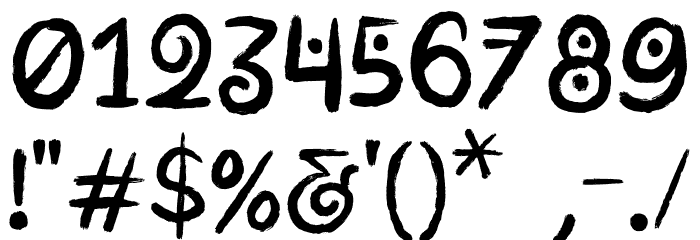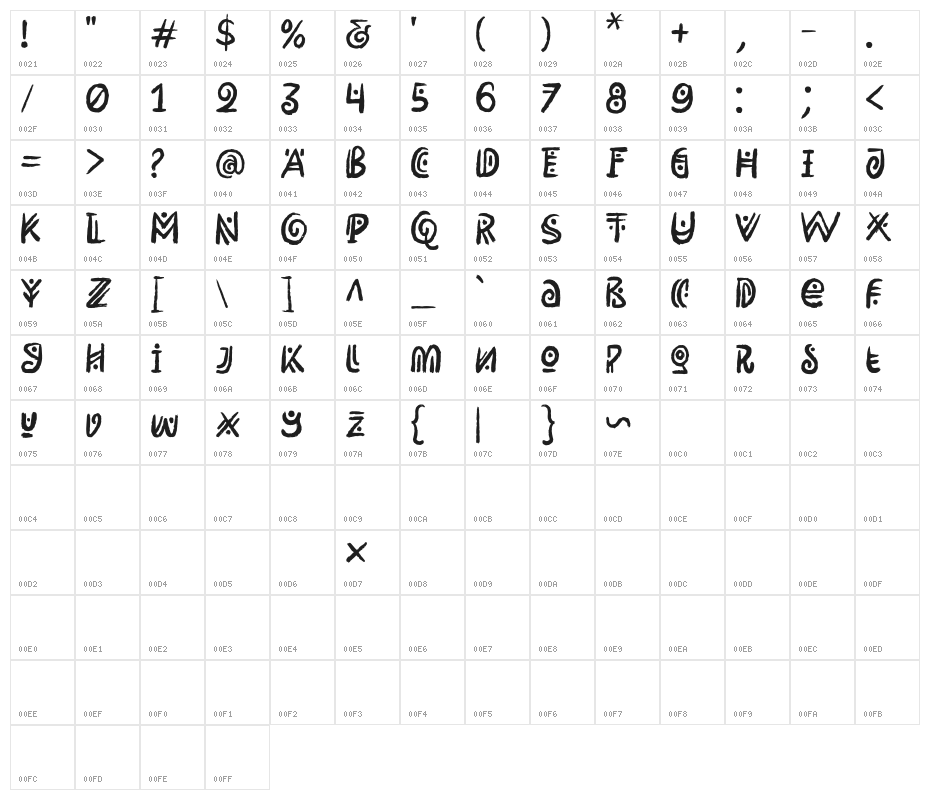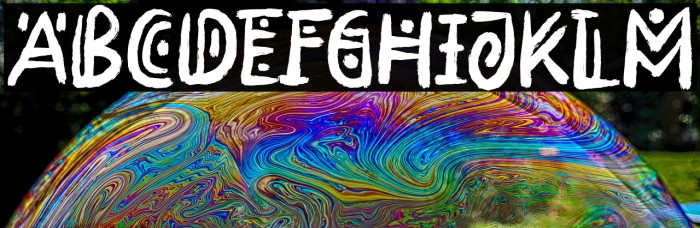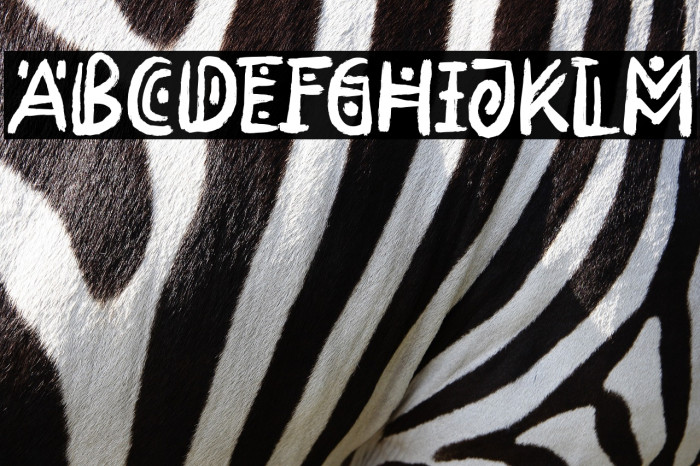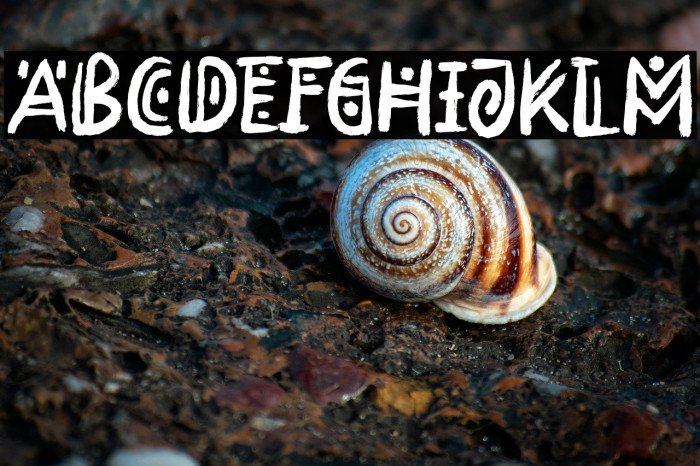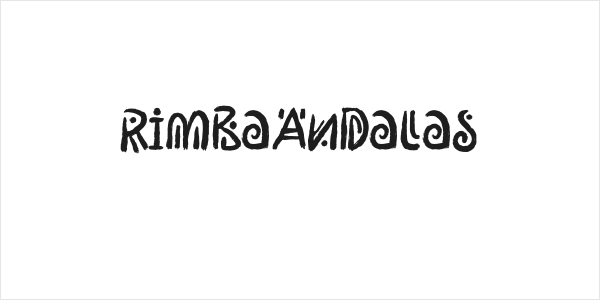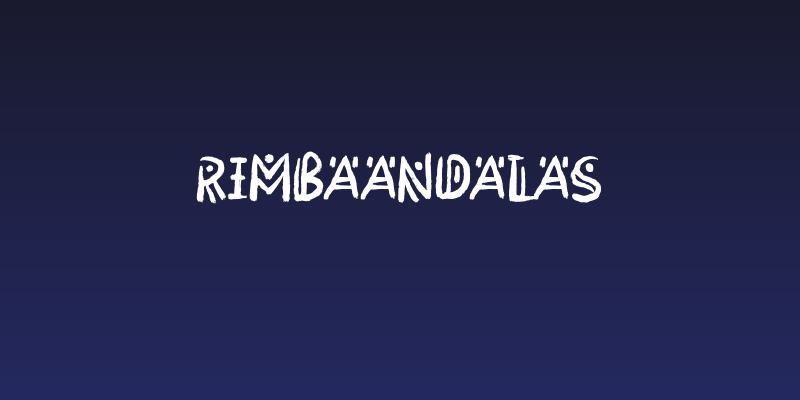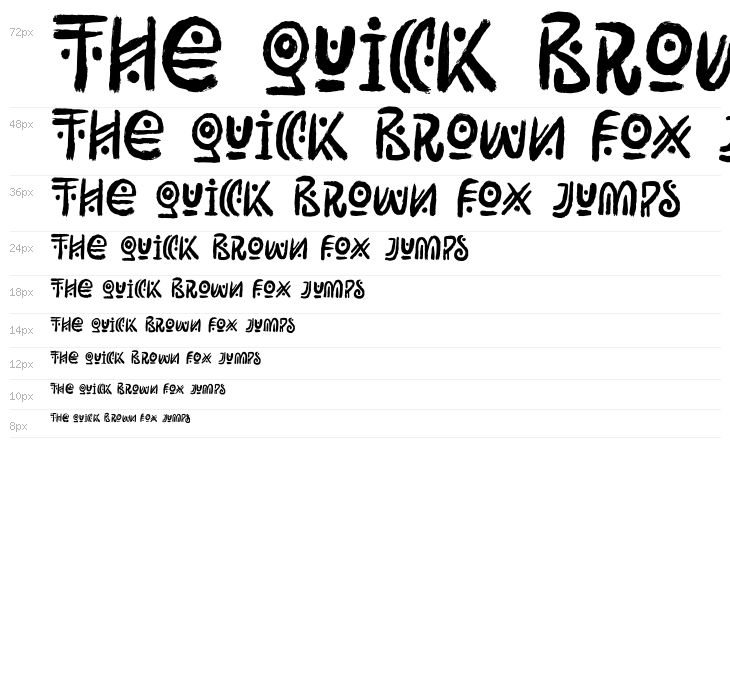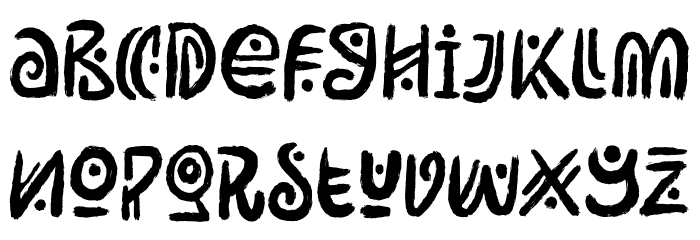
RimbaAndalas Font
RimbaAndalas Description
This font features a bold, artistic style with a hand-drawn appearance. The characters are uniquely crafted, with varying stroke thicknesses that give a dynamic and energetic feel. The uppercase and lowercase letters maintain a consistent design theme, with playful curves and loops that add to its decorative nature. Numbers and special characters are equally expressive, making this font suitable for creative and informal applications. The overall design suggests a sense of movement and spontaneity, ideal for projects that require a touch of whimsy and creativity.